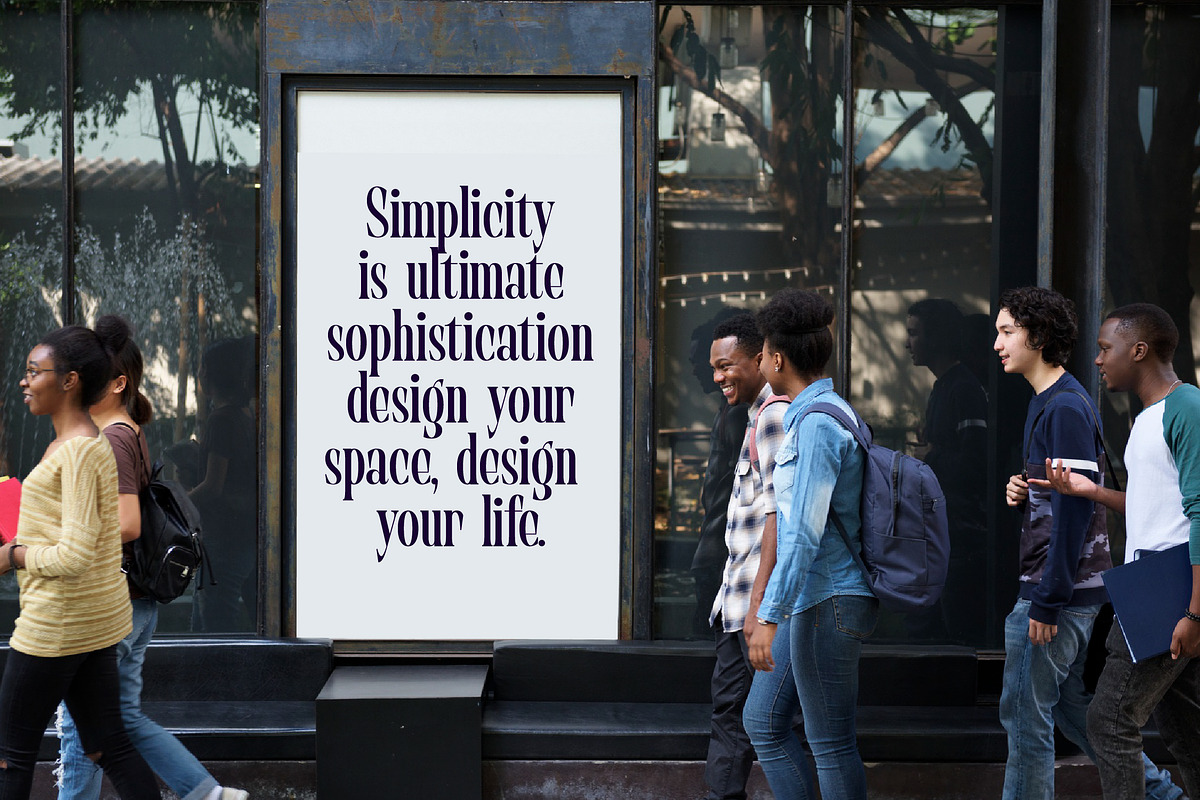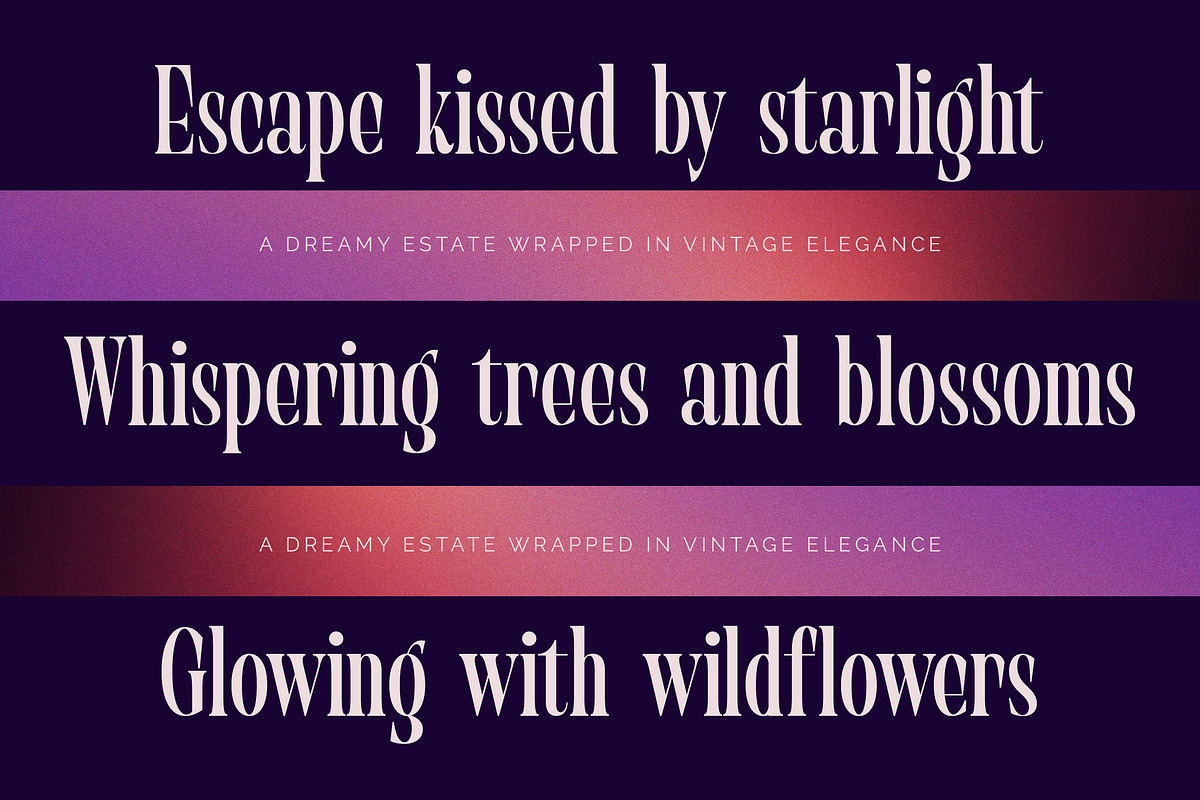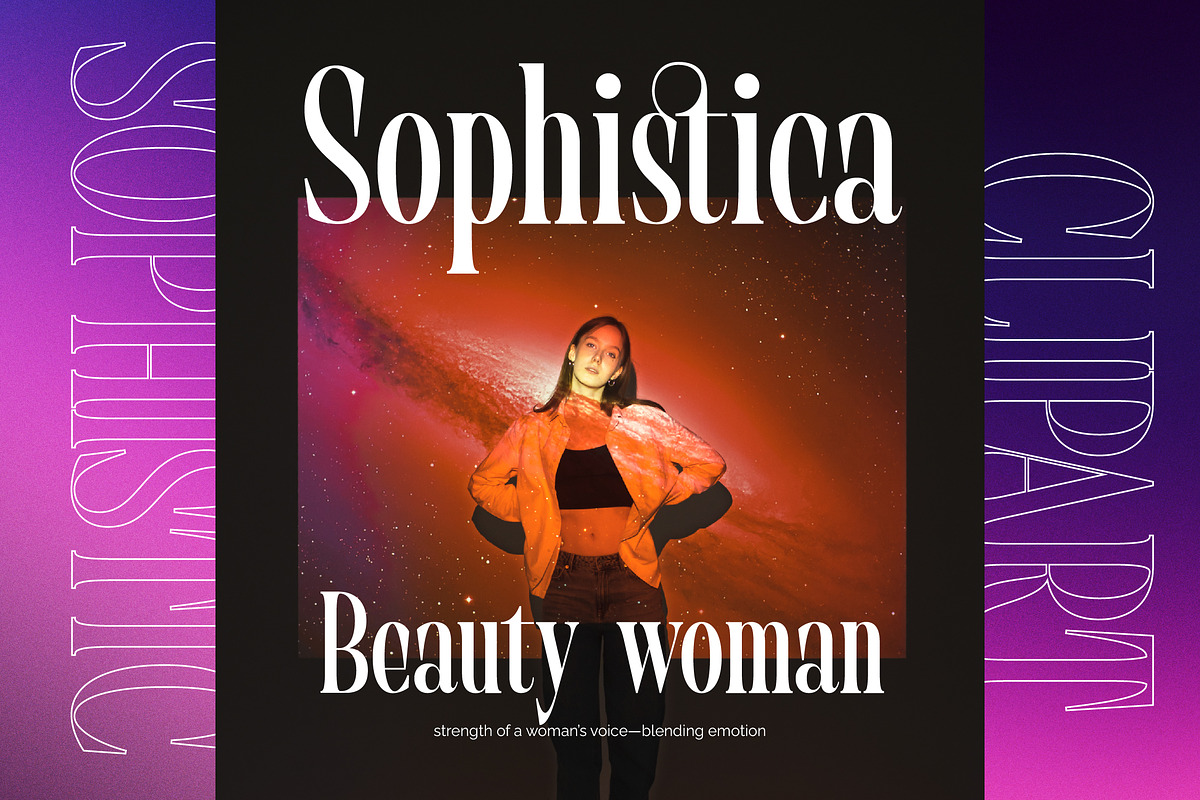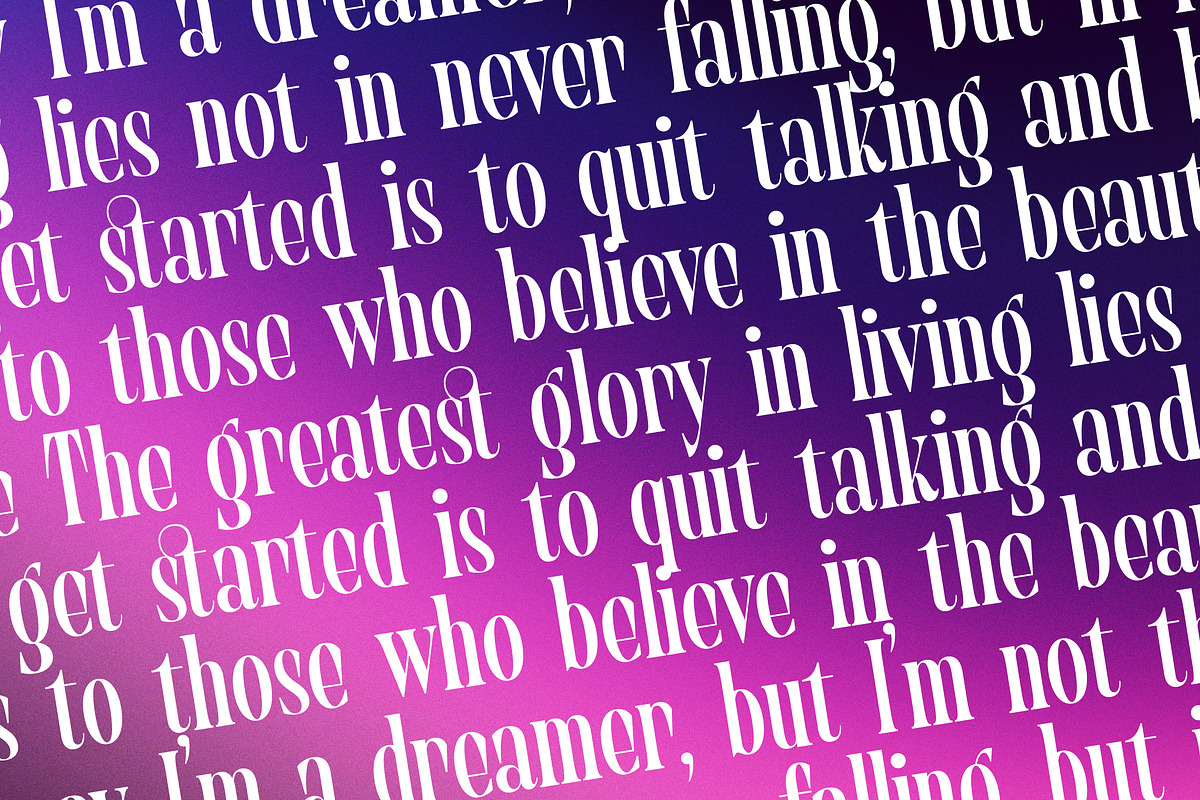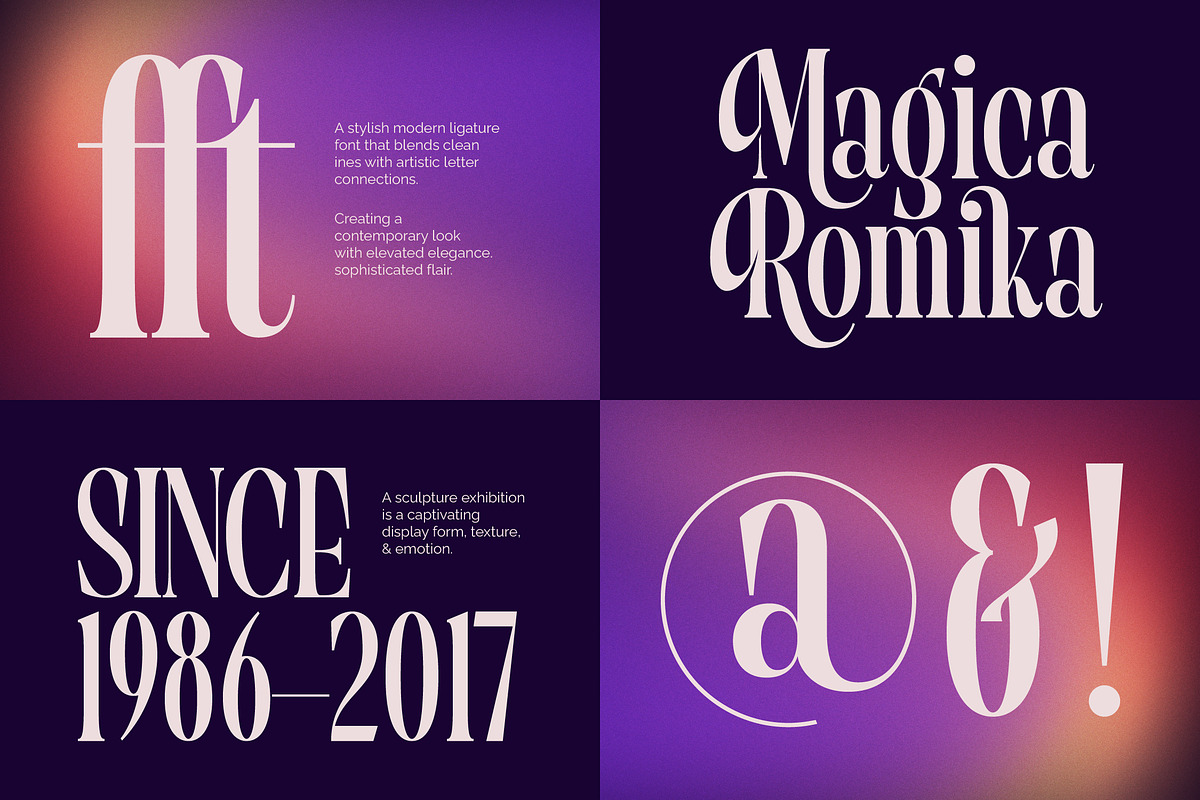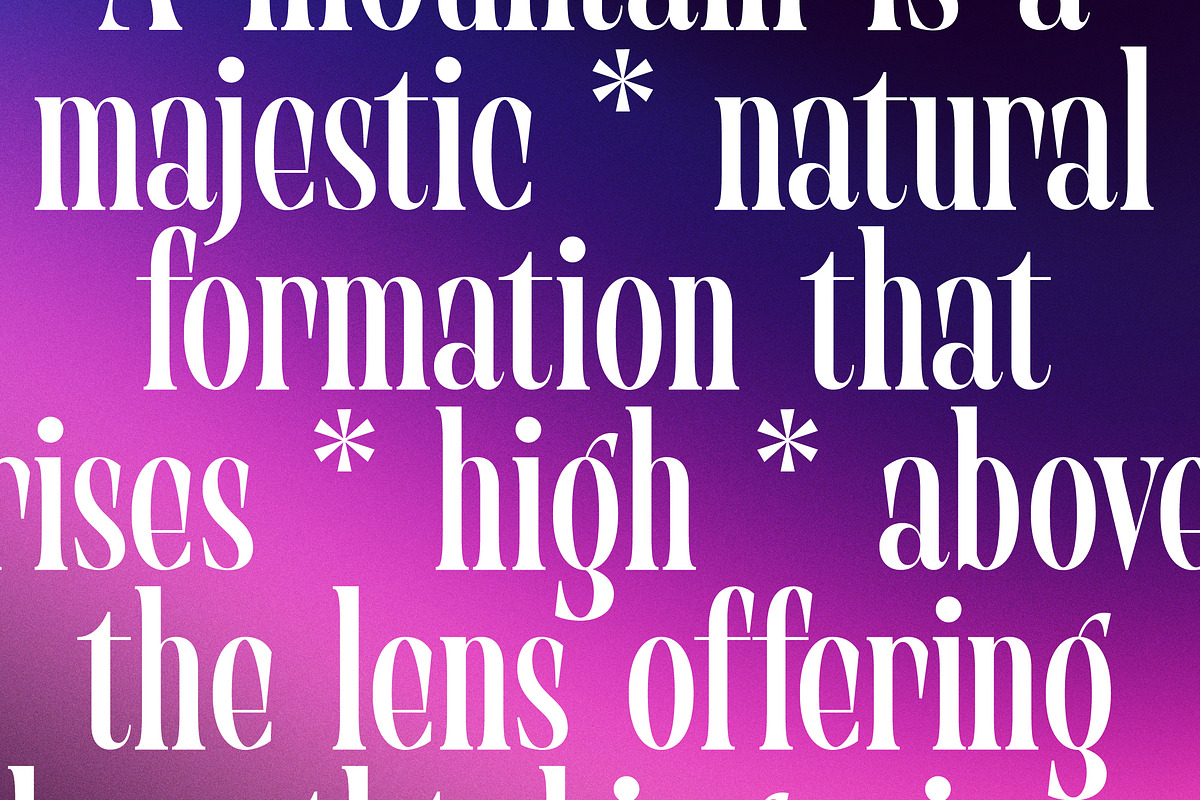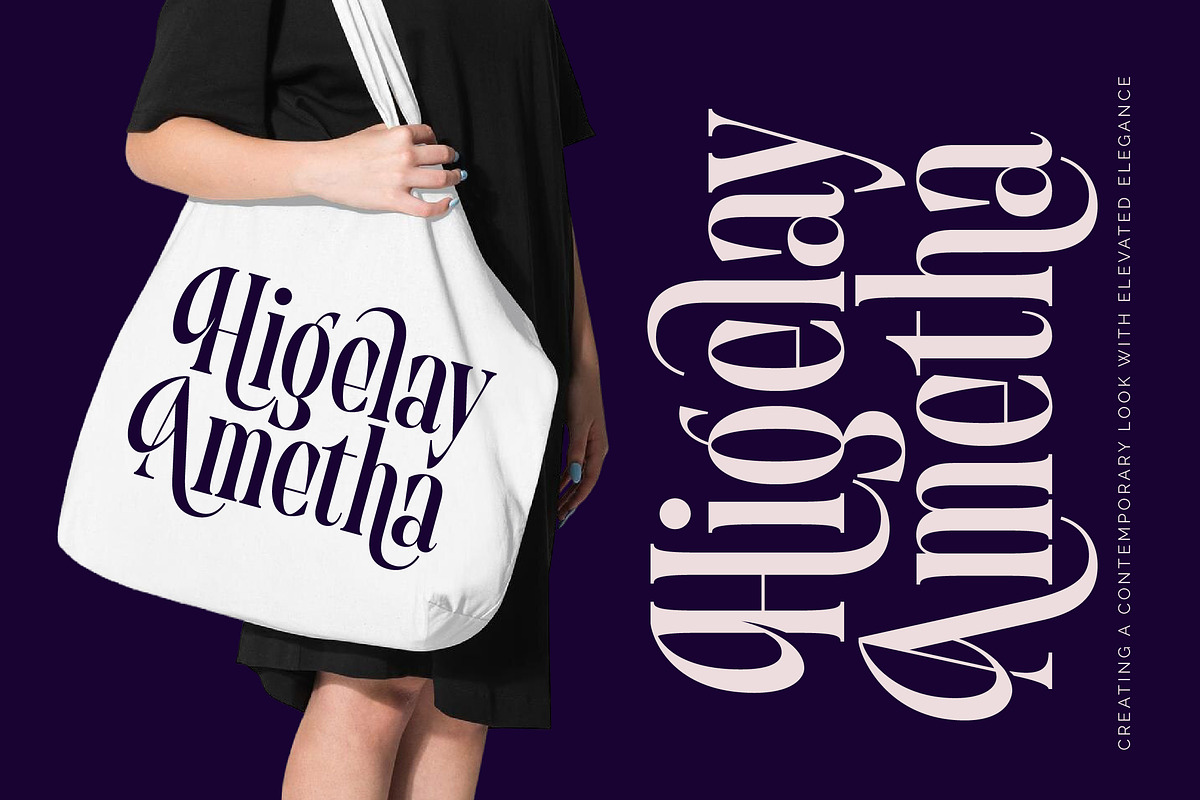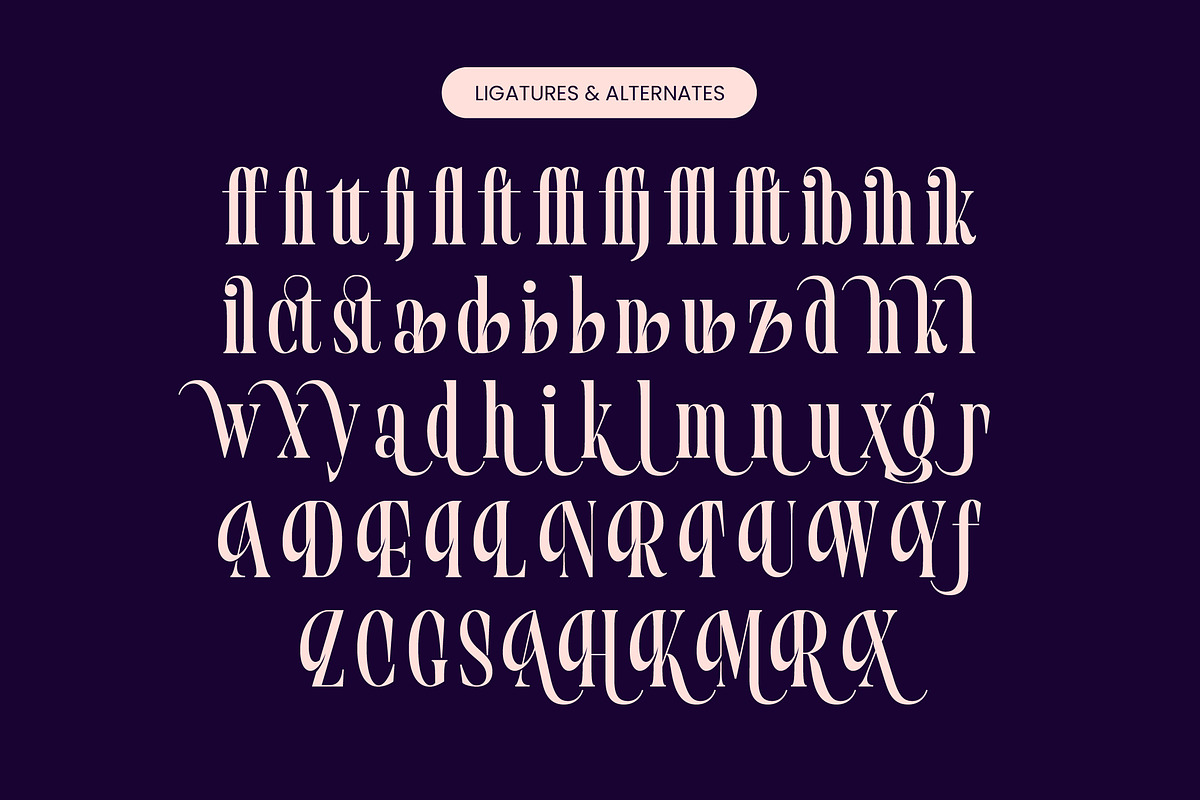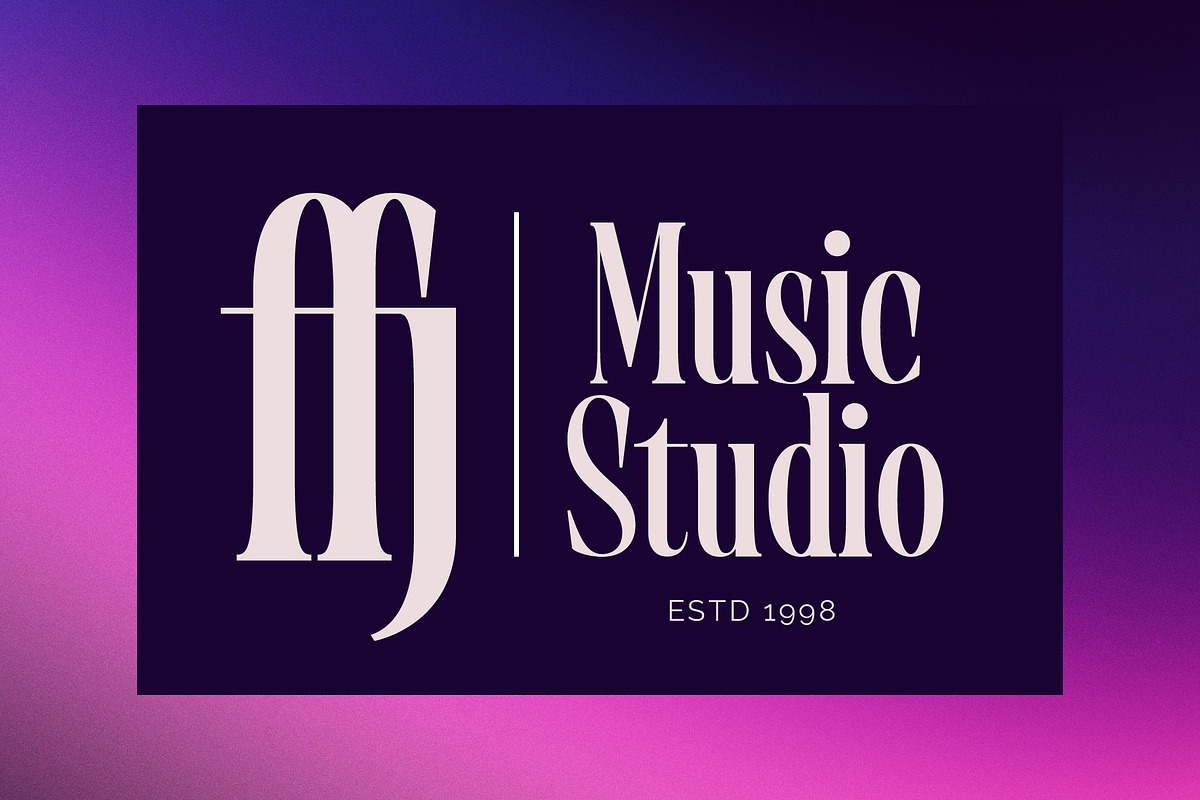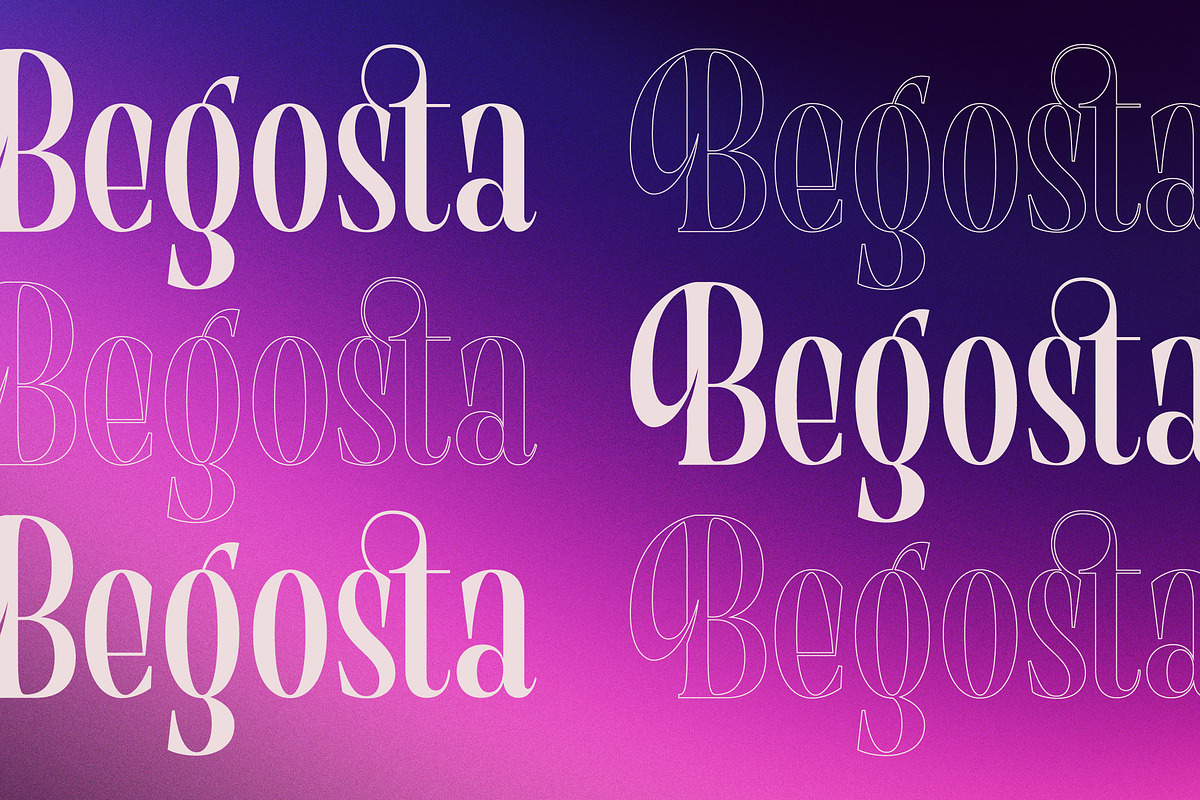
Begosta Modern Display Serif
Begosta is a masterclass in contemporary elegance, blending sharp precision with fluid, organic curves. It's the ultimate statement piece for designers looking to elevate their visual storytelling with a touch of high-end flair.
Drawing inspiration from the golden age of fashion editorial and the avant-garde spirit of modern art, this typeface captures a timeless yet futuristic atmosphere. The interplay between thick stems and razor-thin hairlines creates a rhythmic visual flow that feels both nostalgic and refreshingly new.
With its modern serif display aesthetics, this font is engineered for luxury typography that demands attention. The high-contrast serif design provides an unparalleled editorial font quality, ensuring your projects deliver a powerful branding impact every time.
Capitalizing on the current modern serif trend, this typeface is perfect for designers who prioritize editorial display fonts. It represents the shift towards character-driven typography where every letterform serves as a unique piece of art.
This versatile typeface excels in logo design and high-end branding suites for premium brands. Whether you are working on editorial layouts, luxury packaging, romantic wedding stationery, or bold fashion campaigns, it brings a sophisticated edge to your work.
The package includes a comprehensive set of ligatures and alternates that allow for deep customization. With stunning swashes, full multilingual support, and a wide range of international characters, this font is ready for global creative projects.
- Ligature 16 Alternate 68